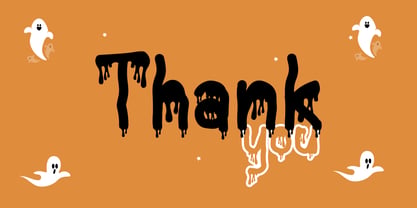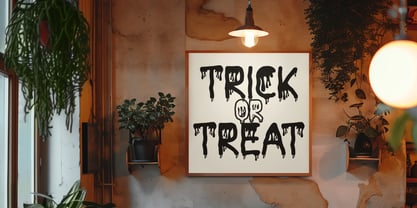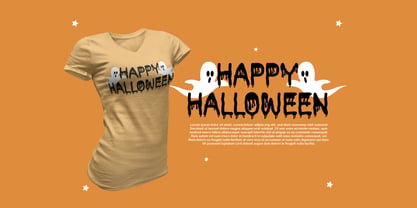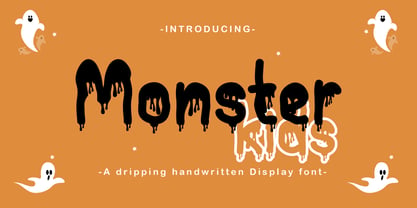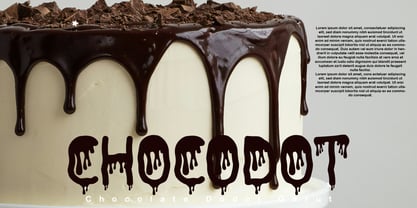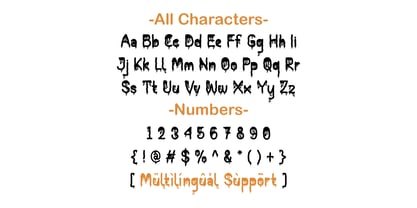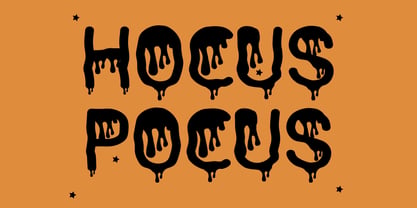
Monster Kids
by Patlot Digital Studio
The Monster Kids Font Family was designed by Gugun Gunawan and published by Patlot Digital Studio. Monster Kids contains 1 styles. More about this family
Monster Kids is a Halloween font inspired by children’s handwriting with blood, slime, or dripping effects, perfectly evoking a spooky or horror atmosphere. Perfect for Halloween party invitations, trick-or-treat bags, t-shirt designs, spooky signs, horror posters, spooky stickers, or other frightening digital art, with Monster Kids, the power to create a captivating aura of spooky imagination is at your fingertips.
Designers: Gugun Gunawan
Foundry: Patlot Digital Studio